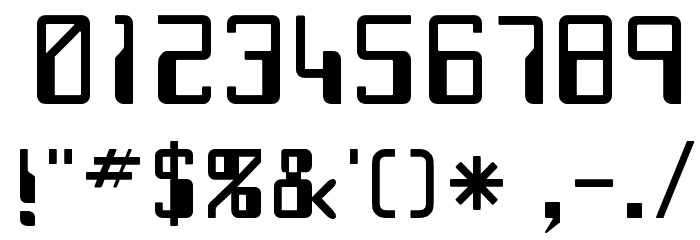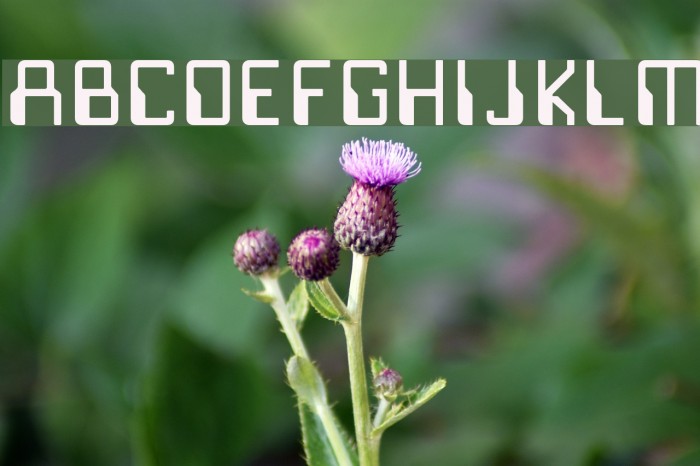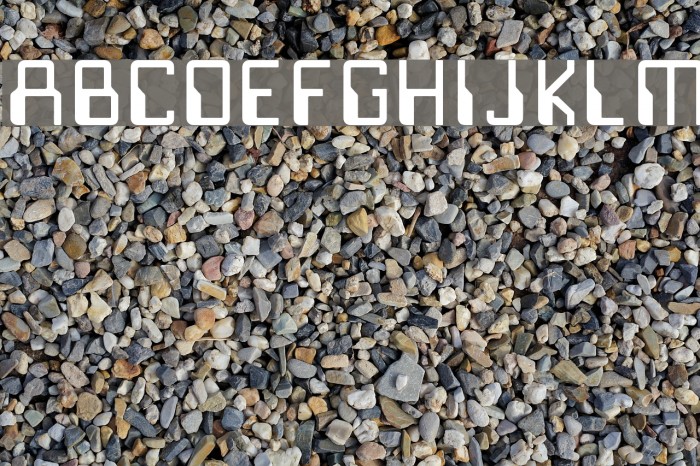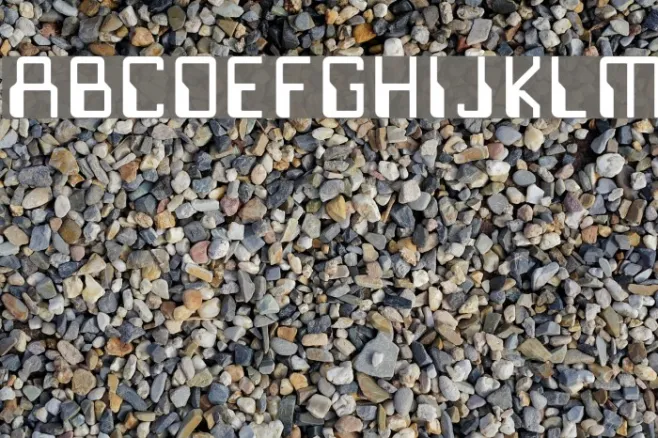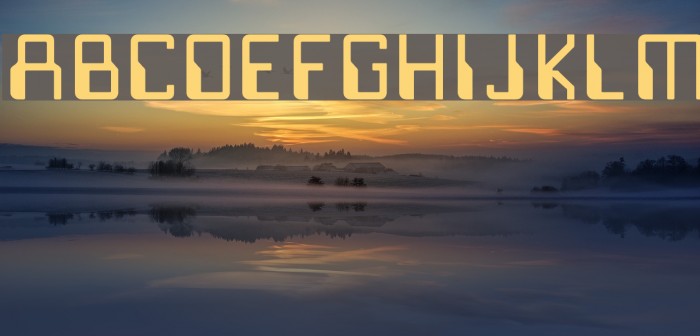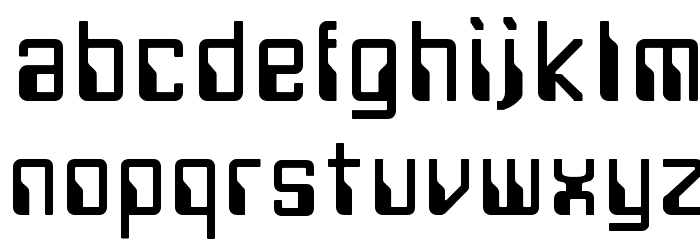
Justov Font
Justov Description
This font features a modern, geometric design with a distinct block-like appearance. The characters are constructed with straight lines and sharp angles, giving it a futuristic and digital feel. The uppercase and lowercase letters maintain a consistent height, contributing to a uniform look. The numbers and special characters follow the same design principles, ensuring cohesion across all elements. The font's unique style makes it stand out, with a bold presence that commands attention. Its structured form is ideal for projects that require a contemporary and edgy aesthetic.